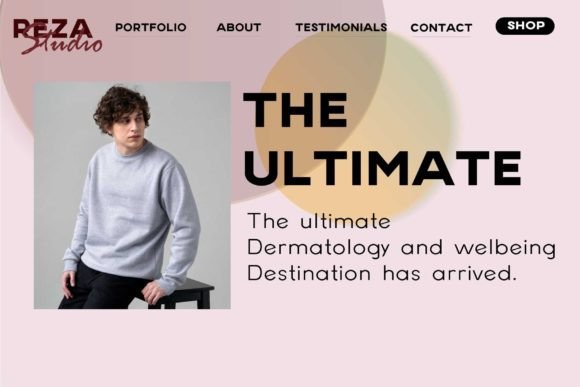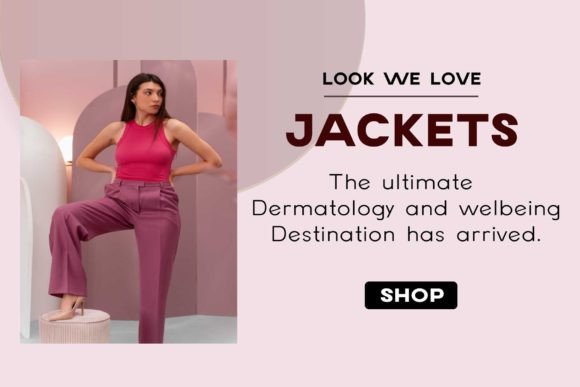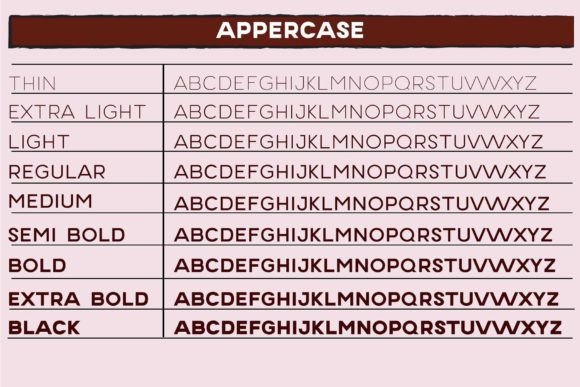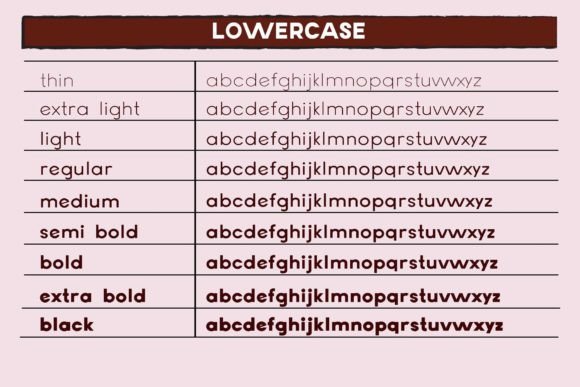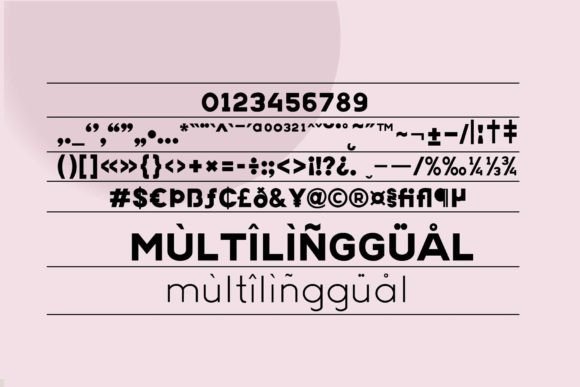
Discover the Elegance of Erigo Font: A Modern Design Essential
In the realm of typography, few fonts manage to strike a balance between modern sleekness and timeless elegance as effortlessly as Erigo Font. This sans-serif font family has been gaining attention for its clean lines, minimalistic charm, and versatility, making it an ideal choice for designers and crafters looking to elevate their projects. In this article, we’ll delve into the world of Erigo Font, exploring its characteristics, applications, and the unique advantages it offers in today’s visually driven landscape.
The Essence of Erigo Font
Erigo Font embodies the perfect fusion of contemporary aesthetics and classic readability. Its sans-serif design, characterized by the absence of decorative flourishes, lends it a clean and streamlined appearance. This simplicity is not just visually appealing; it also enhances legibility, making Erigo Font an excellent choice for both digital and print media. Whether you’re crafting a corporate brand identity, designing a website, or creating engaging social media content, Erigo Font provides a versatile canvas for creative expression.
Versatility Across Design Mediums
One of the standout features of Erigo Font is its adaptability. Its neutral yet sophisticated style allows it to seamlessly integrate into various design contexts. For corporate branding, Erigo Font exudes professionalism and modernity, helping businesses establish a strong and contemporary visual identity. In digital design, its clarity and readability make it an invaluable asset for UI/UX designers aiming to create intuitive and user-friendly interfaces.
Moreover, Erigo Font’s versatility extends to creative projects such as posters, brochures, and even packaging design. Its elegant simplicity can add a touch of sophistication to any material, making it stand out in a crowded marketplace. The font’s ability to convey messages effectively and capture attention is a significant advantage in today’s competitive design landscape.
Timeless Elegance and Enduring Appeal
While trends in design come and go, Erigo Font’s timeless elegance ensures its enduring appeal. Unlike more ornate or trendy fonts that may quickly become outdated, Erigo Font’s classic sans-serif design remains relevant and stylish across years and industries. This longevity is a crucial consideration for brands and designers looking to invest in typography that will stand the test of time.
The enduring appeal of Erigo Font also lies in its emotional resonance. It can evoke a sense of innovation, forward-thinking, and approachability, making it an excellent fit for brands looking to connect with their audience on a modern and dynamic level. Whether you’re aiming to convey luxury, friendliness, or professionalism, Erigo Font offers the flexibility to adapt to your brand’s unique voice and personality.
Applications of Erigo Font
The applications of Erigo Font are as diverse as its benefits. Here are a few scenarios where Erigo Font truly shines:
- Corporate Branding: Use Erigo Font to create a sleek and professional brand identity that communicates modernity and reliability.
- Digital Interfaces: Enhance user experience with Erigo Font’s clarity and readability, making it perfect for websites, apps, and software.
- Marketing Materials: From brochures to billboards, Erigo Font can elevate your marketing materials with its sophisticated and clean aesthetic.
- Packaging Design: Add a touch of elegance to your product packaging, making it stand out on store shelves.
| Font Name | Erigo Font |
| Author | Rezastudio |
Erigo Font stands as a testament to the power of typography in design. Its blend of sleek modernity and timeless elegance, coupled with its versatility and readability, makes it an invaluable tool for designers and crafters. Whether you’re looking to create a lasting brand impression, enhance digital experiences, or simply add a touch of sophistication to your projects, Erigo Font offers a compelling solution. As we continue to navigate the visually driven landscape of today, fonts like Erigo lead the way, demonstrating the enduring impact of thoughtful and well-designed typography.